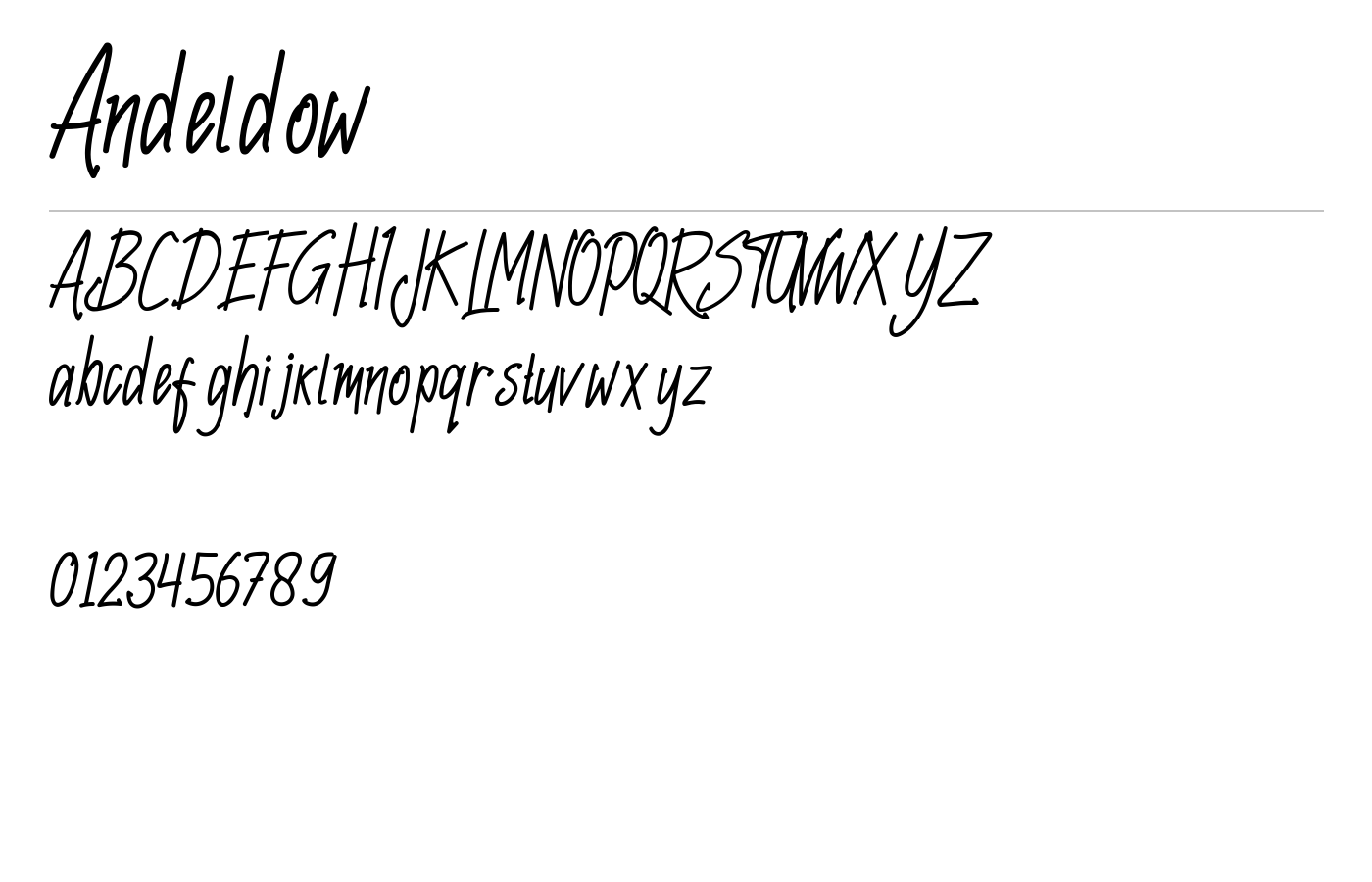
Andeldow is a slender and playful handwritten script font with a casual, organic feel. Its narrow, slightly slanted letterforms feature varied stroke widths and quirky curves, giving it a friendly and approachable personality perfect for creative branding, informal headlines, and personal projects. This font works well when you want to add a touch of individuality and warmth to designs without sacrificing readability.
Andeldow Font
About Andeldow Font